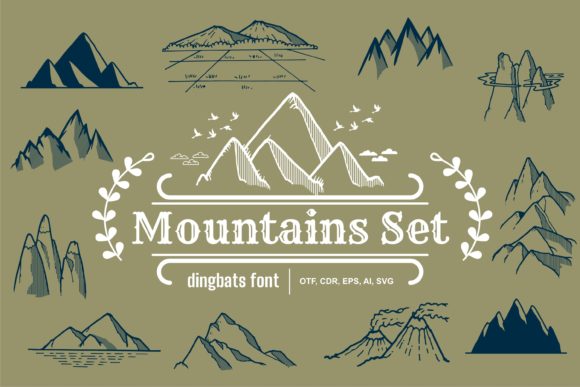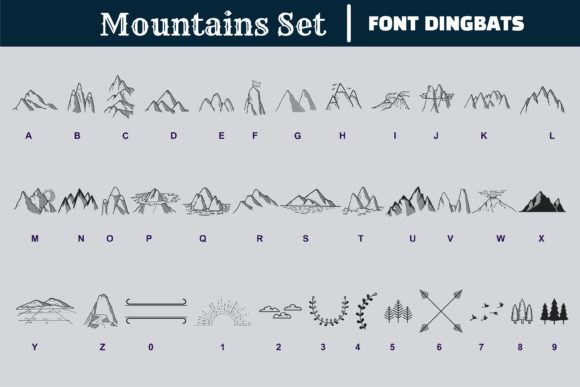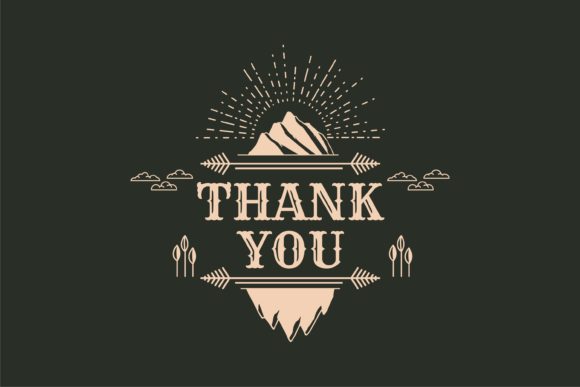
Mountains Set Font
About Mountains Set Font,
Mountains Set is indeed a useful and beautiful dingbats font that can enhance a wide range of creative projects. With its collection of mountain-themed symbols, this font offers a unique and captivating visual element that can elevate your designs.
The Mountains Set dingbats font is particularly well-suited for various applications. If you’re into crafting, this font provides you with a set of mountain-related symbols that can be incorporated into scrapbooking, card-making, or other DIY projects. The intricate details and artistic representation of mountains in this font add a touch of elegance and natural beauty to your creations.
For digital designers, the Mountains Set font opens up a world of possibilities. You can use these symbols to create stunning visual compositions, illustrations, and logos that are inspired by mountains and nature. Whether you’re working on website designs, social media graphics, or branding projects, this font allows you to infuse your designs with a sense of adventure, tranquility, and the grandeur of the mountains.
Presentations can also benefit from the Mountains Set font. If you’re preparing a slideshow or a visual presentation on topics such as travel, nature, or adventure, incorporating these mountain symbols can help convey the desired atmosphere and captivate your audience. The unique and recognizable mountain shapes in this font add a distinctive visual element to your slides, making them more engaging and memorable.
When it comes to greeting card making, the Mountains Set font can be your go-to choice. Whether it’s a birthday card, a holiday greeting, or a special occasion card, the mountain symbols can be used to create beautiful and personalized designs. The versatility of this font allows you to adapt the mountain symbols to different themes and styles, giving your cards a unique and heartfelt touch.
The beauty of the Mountains Set font lies not only in its aesthetic appeal but also in its versatility. It offers a range of mountain symbols that can be easily incorporated into diverse projects, making it suitable for various creative endeavors. The symbols are carefully designed to ensure clarity and visual impact, allowing you to create visually stunning designs that resonate with your audience.
In conclusion, the Mountains Set font is a valuable resource for crafting, digital designing, presentations, and greeting card making. Its collection of mountain-themed symbols adds a touch of natural beauty and adventure to your creations. Whether you’re seeking to evoke a sense of tranquility, create visually captivating designs, or personalize your projects, the Mountains Set font is the perfect companion. Embrace the versatility and beauty of this font and let it elevate your creative endeavors to new heights.